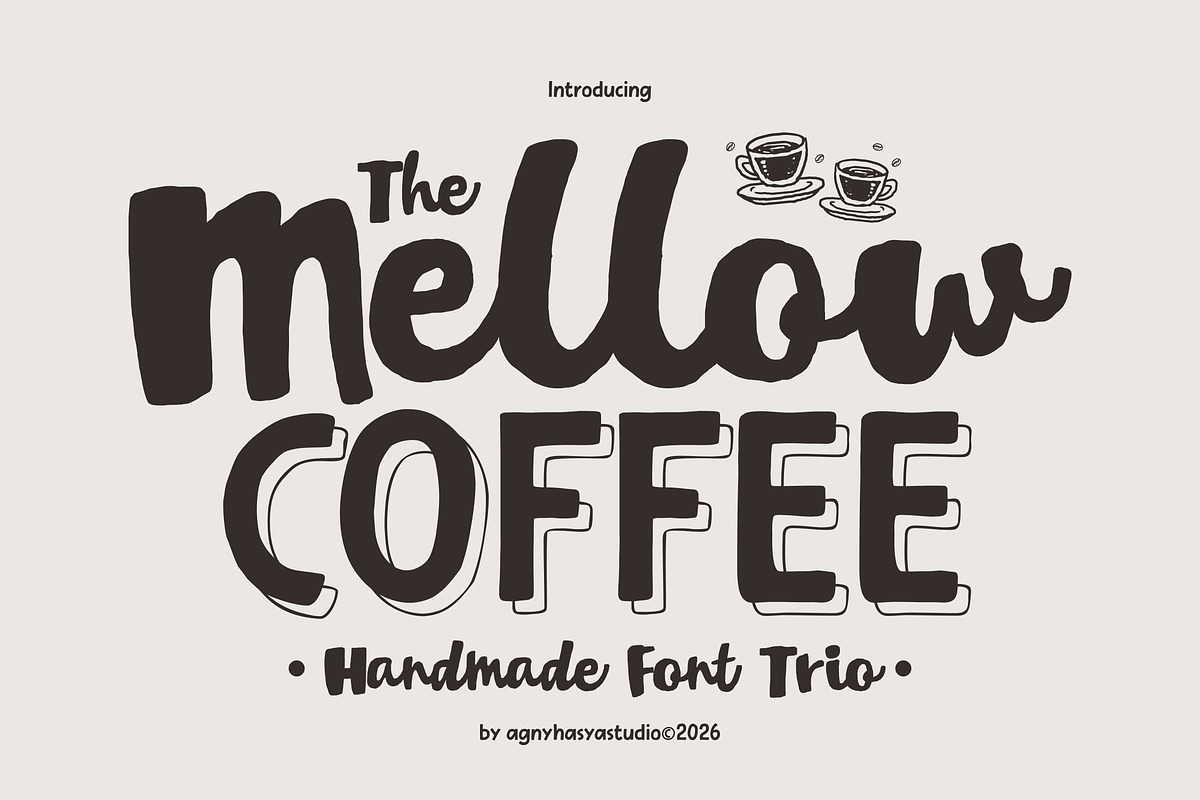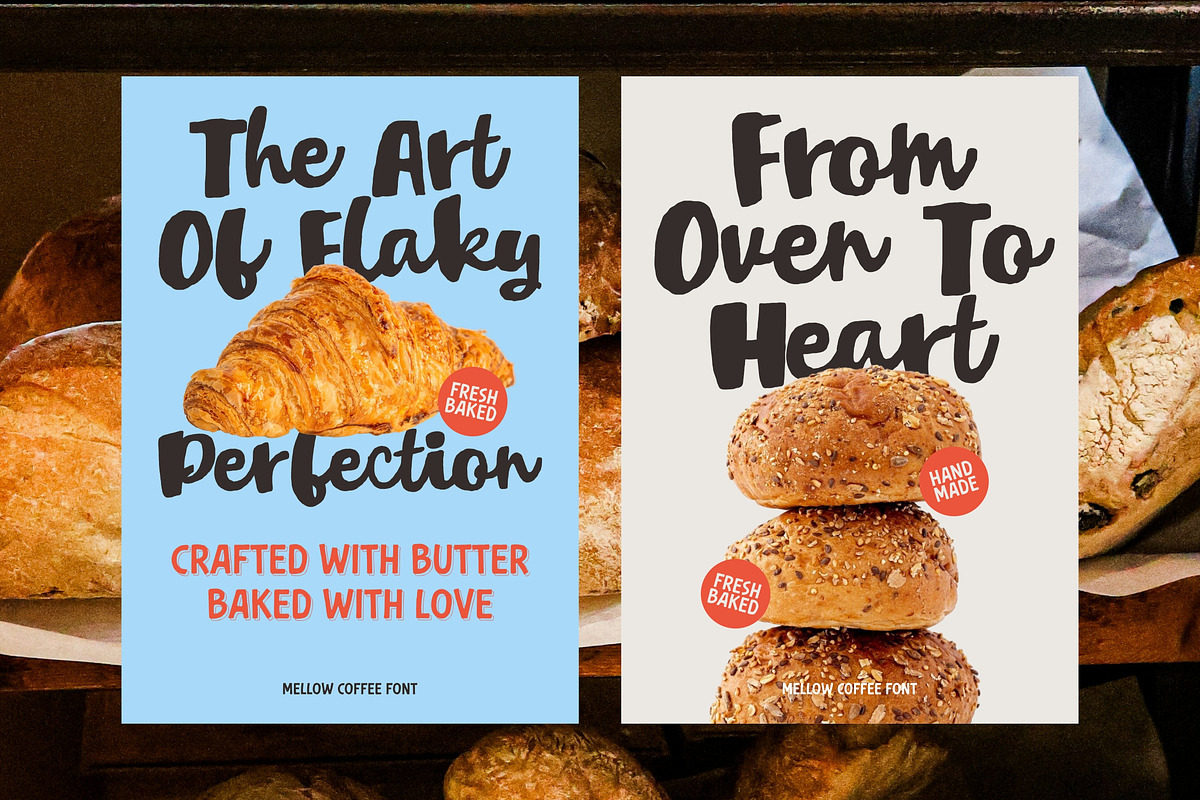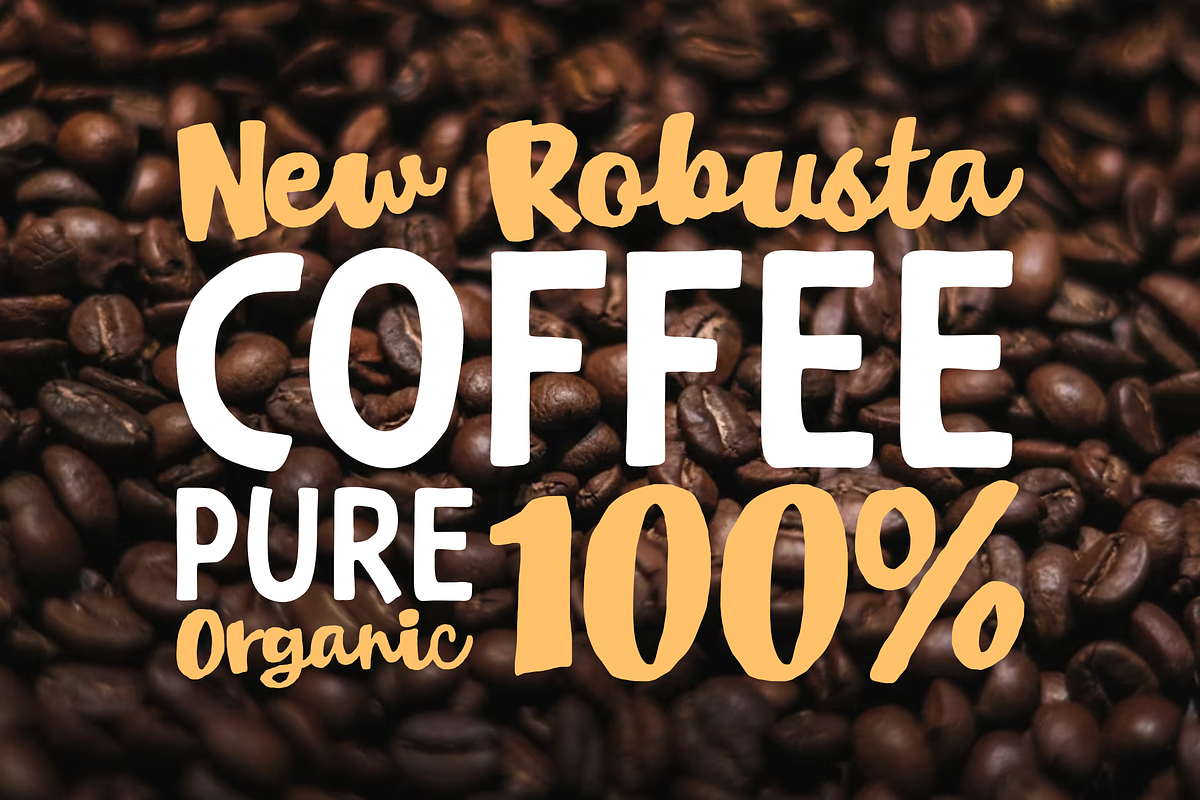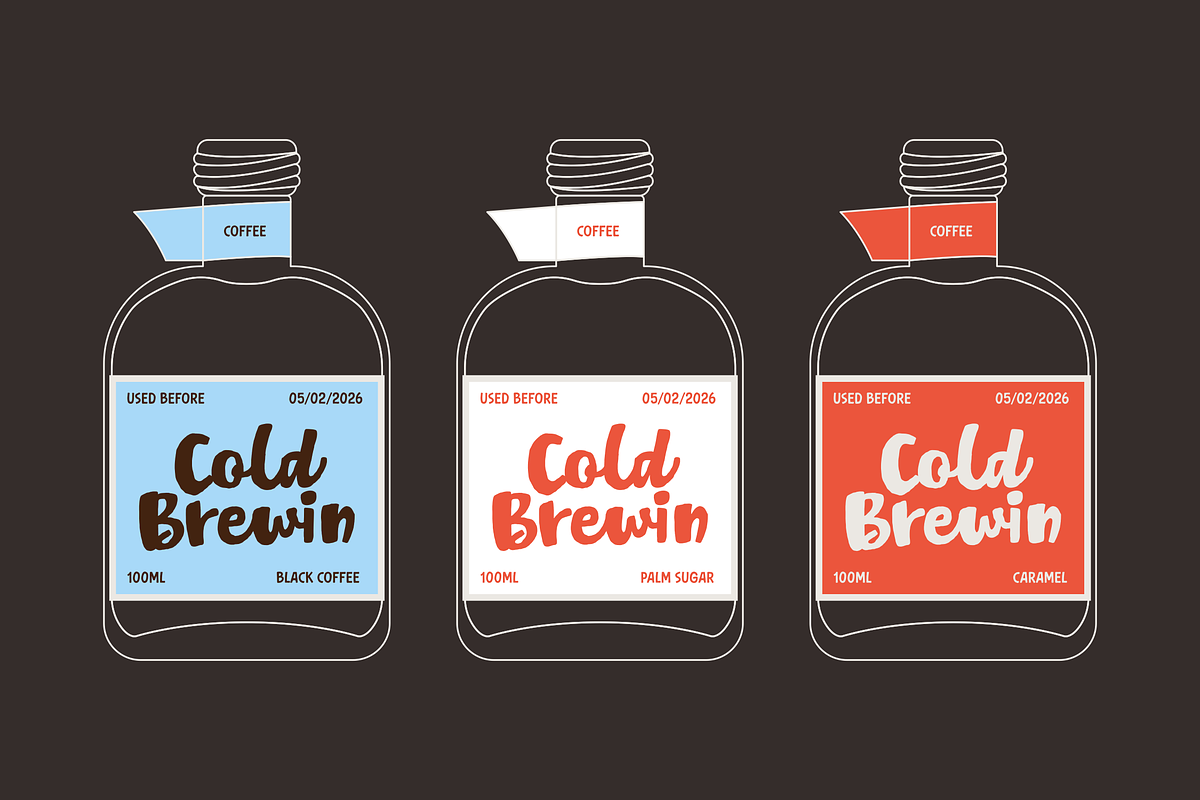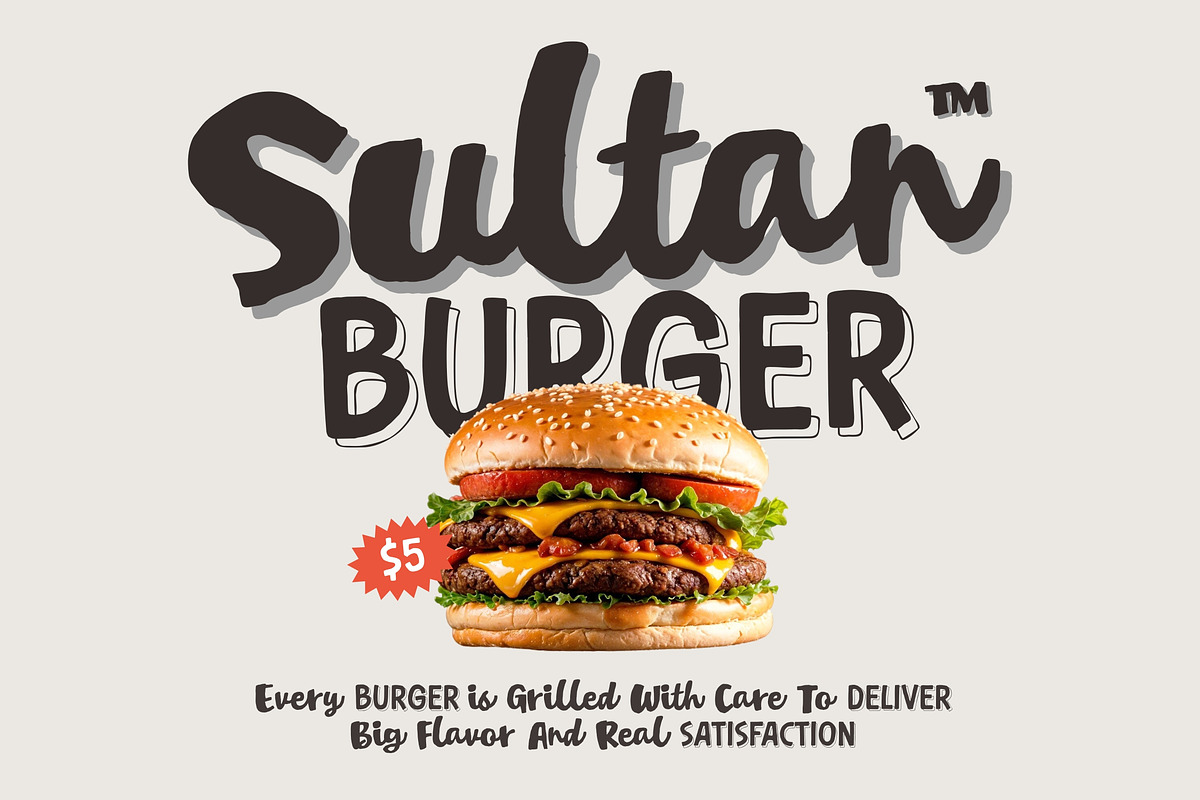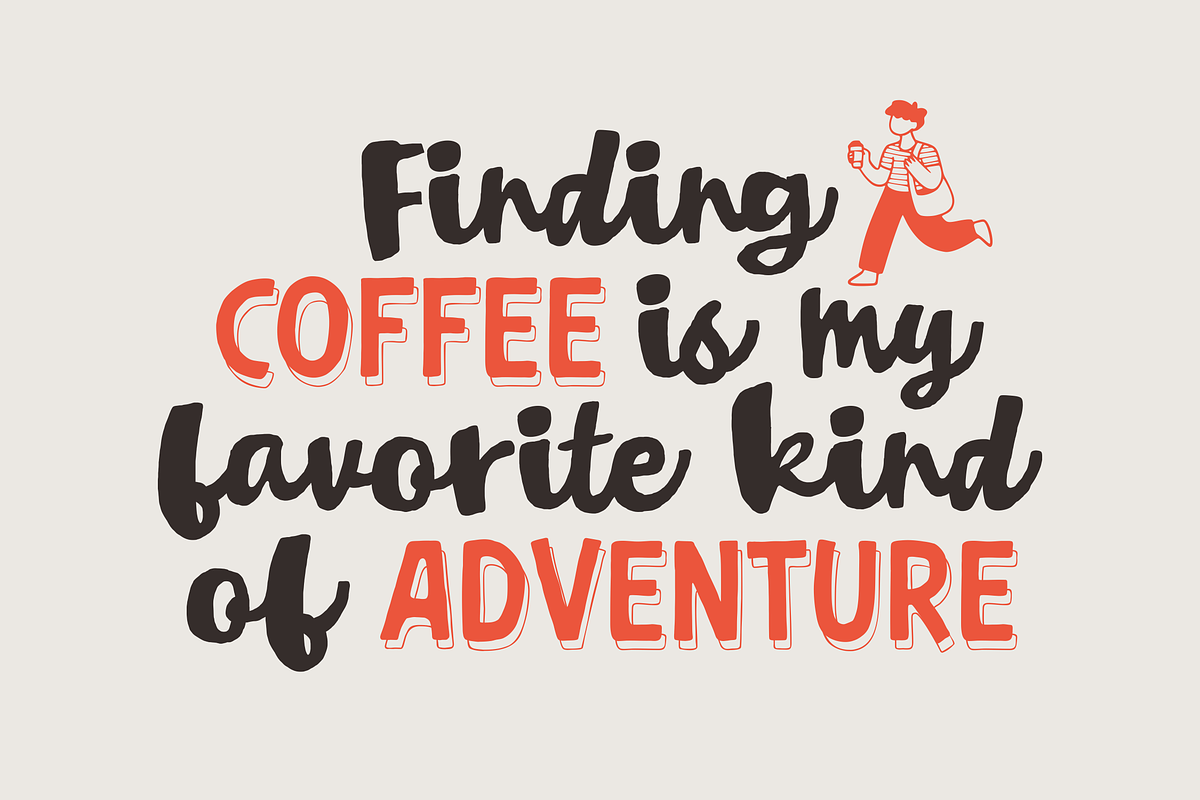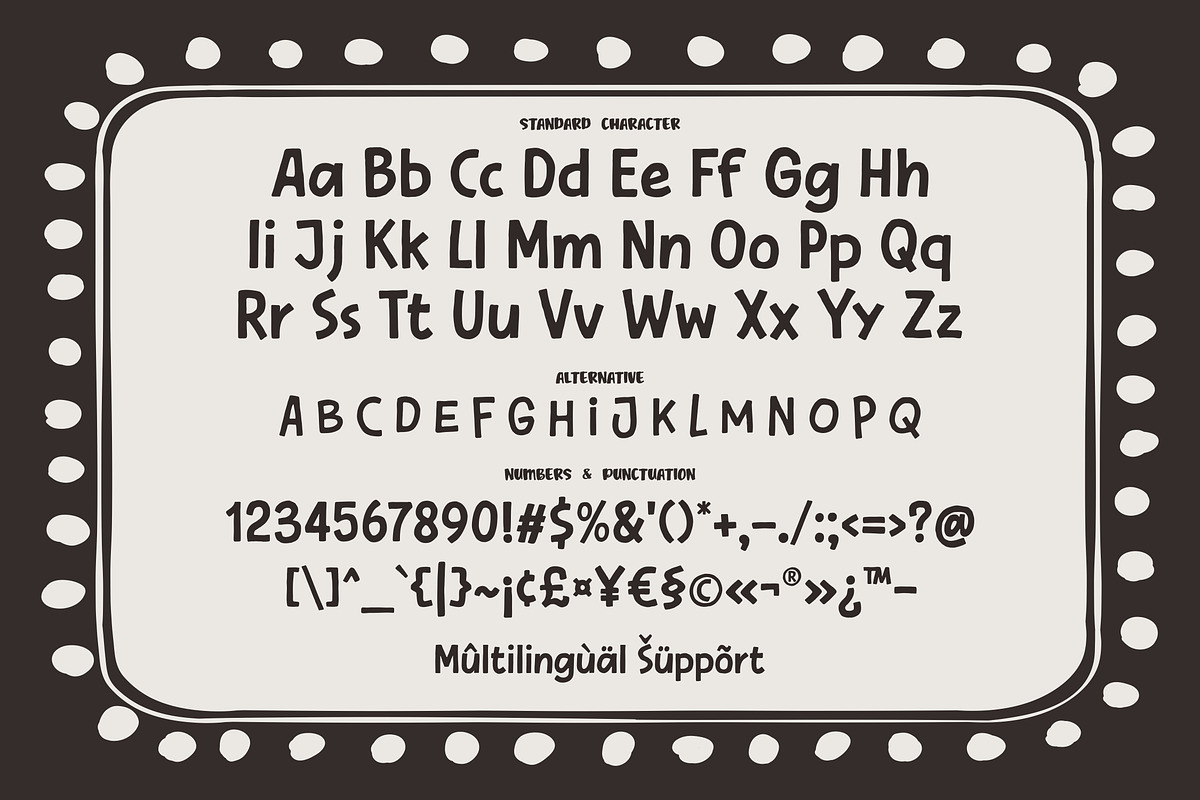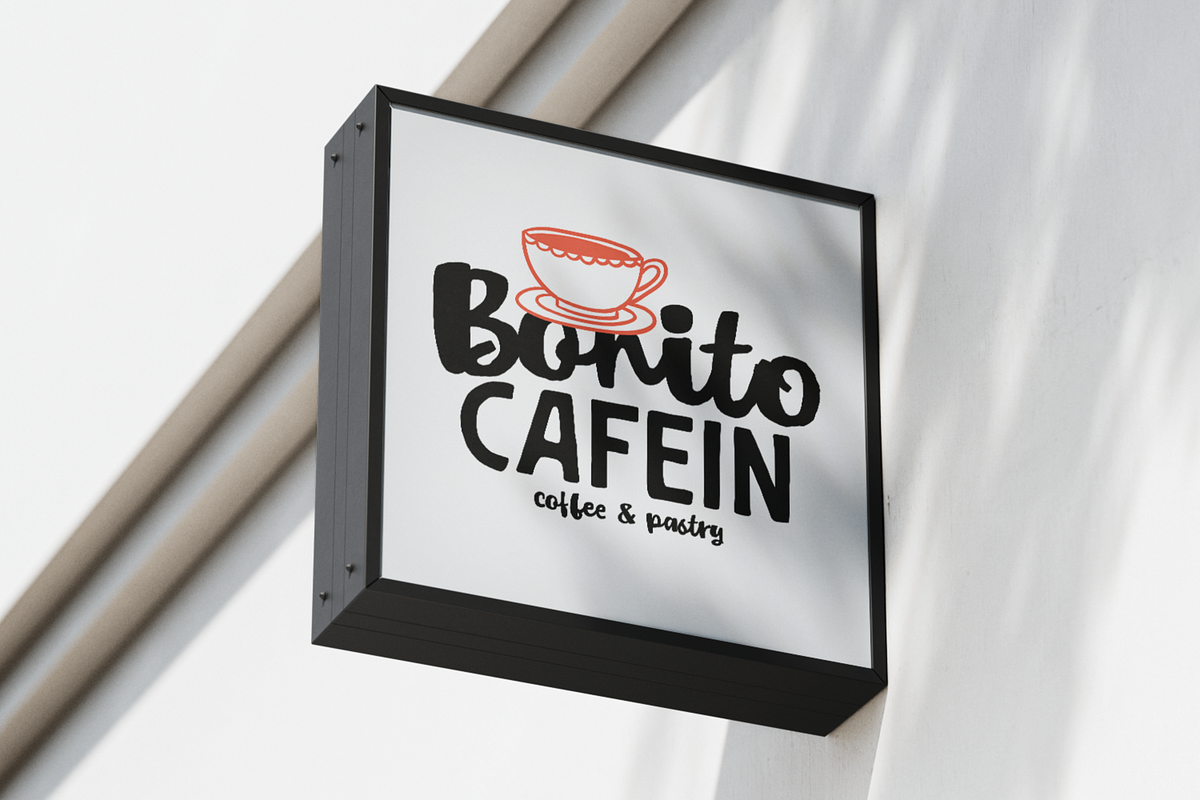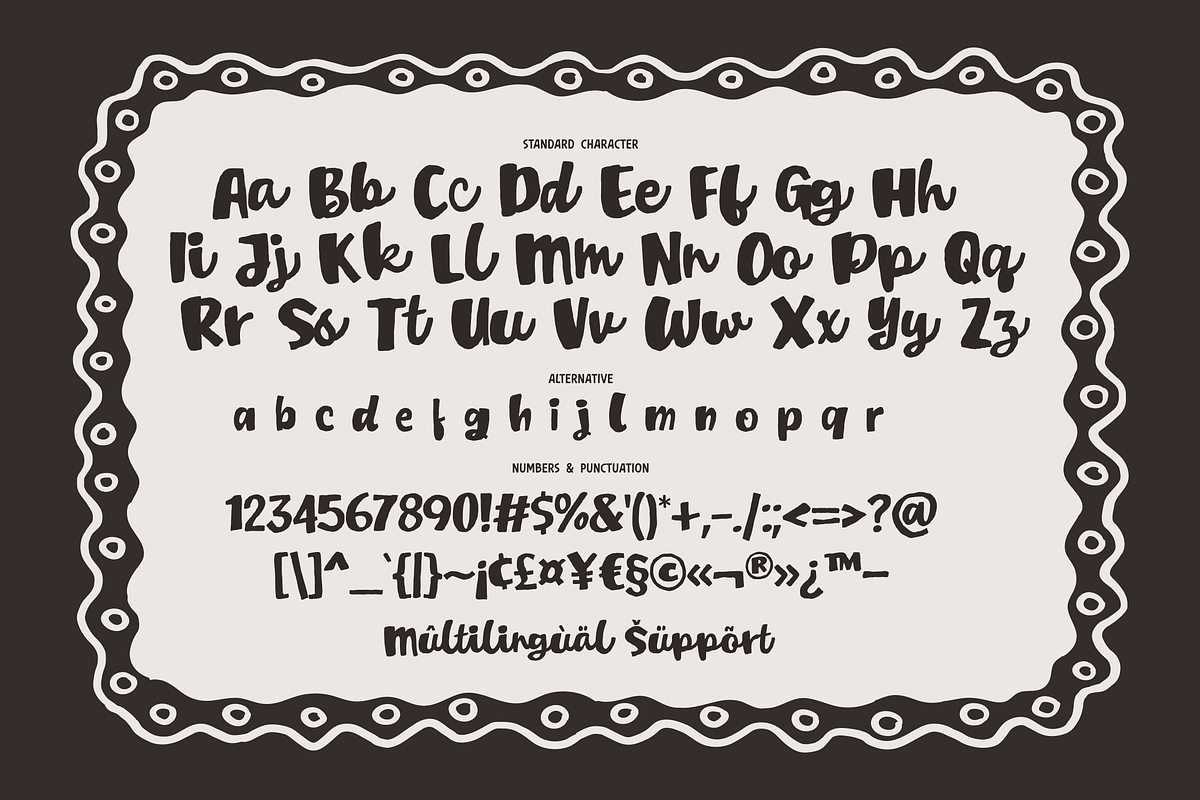
Mellow Coffee - Handmade Font Trio
Bring a warm, handcrafted touch to your designs with Mellow Coffee, a charming font trio inspired by cozy cafés, fresh pastries, and slow mornings.
This carefully crafted font set includes a smooth script, a bold sans serif, and a playful outline style. Designed to work seamlessly together, Mellow Coffee gives you the flexibility to create eye-catching typography for branding, packaging, signage, and social media.
Whether you're designing for a coffee shop, bakery, or lifestyle brand, this font delivers a friendly and authentic feel that instantly connects with your audience. The imperfect handmade strokes add personality, while the clean structure keeps everything readable and versatile.
Café & bakery branding
Packaging design
Instagram content
Logo & signage
Quotes and lifestyle graphics
Add Mellow Coffee to your font collection and start creating designs that feel warm, inviting, and full of character.